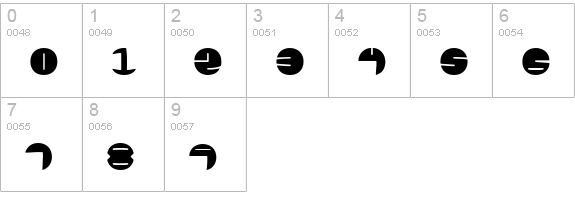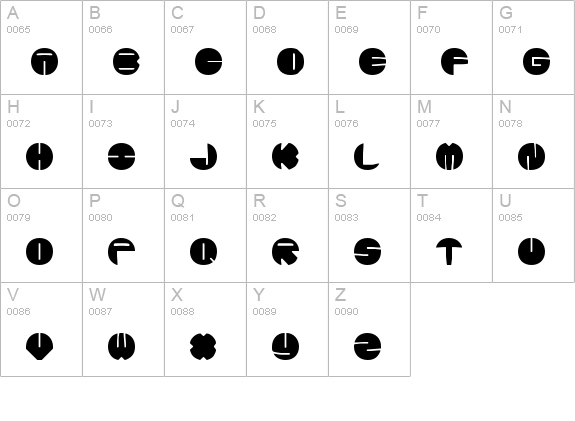
Zurklez Solid (BRK) Font Details
Zurklez Solid (BRK) font is a bold and striking typeface that exudes strength and stability. With its solid and sturdy appearance, this font is perfect for conveying a sense of reliability and power in your designs. The thick, blocky letterforms make a strong impact and command attention, making it ideal for headlines, logos, and branding materials. This font is versatile and can be used in various design projects, from posters and banners to websites and packaging. Its clean and modern look ensures readability across different mediums and sizes. The best part is that Zurklez Solid (BRK) font is available for free download at FontsMarket.com. You can easily access this high-quality font and incorporate it into your projects without any cost. Don't miss out on this opportunity to enhance your designs with the bold and impactful Zurklez Solid (BRK) font.